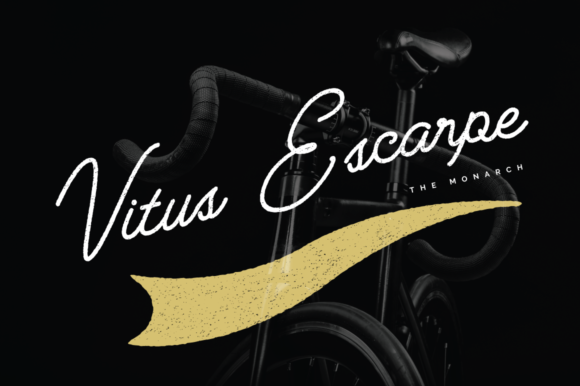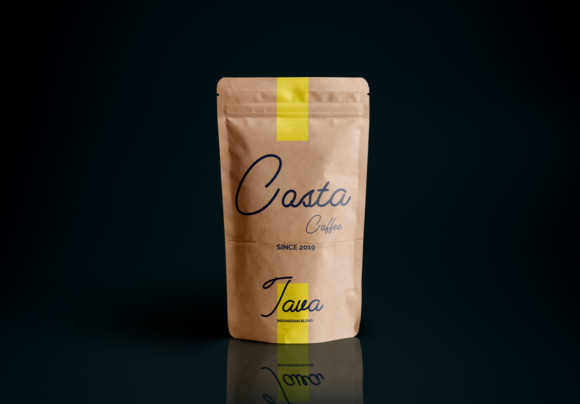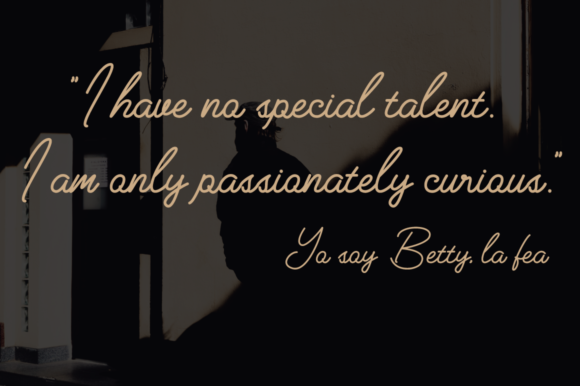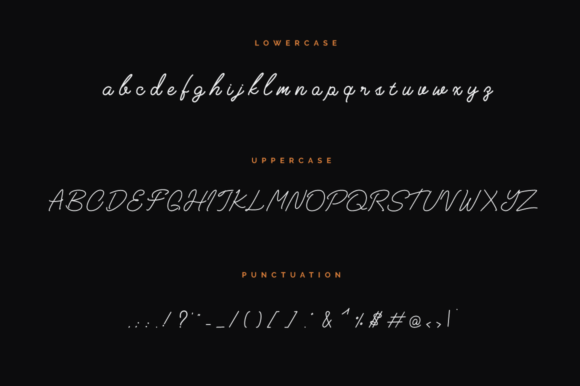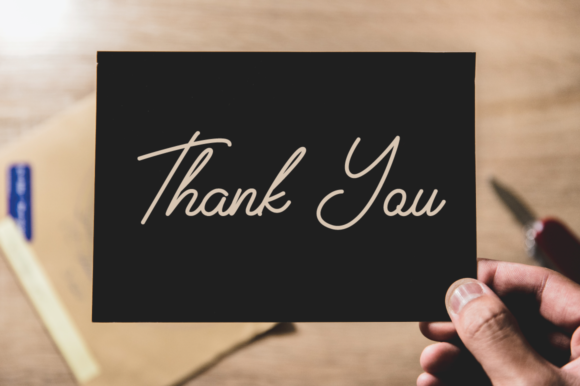
Discover the Charm of Heima Font: A Sweet and Simple Handwritten Delight
Are you a designer, crafter, or simply a font enthusiast looking for a unique and captivating typeface to elevate your creative projects? Look no further than Heima Font, a sweet and simple handwritten font that exudes a cool charm. In this article, we’ll dive into the world of Heima Font, exploring its distinctive features, uses, and the inspiration behind its creation.
The Story Behind Heima Font
Heima Font is a carefully crafted handwritten font that boasts a distinctive personality. Its creator aimed to design a typeface that would convey a sense of warmth, friendliness, and approachability. With Heima, you’ll discover a font that feels both personal and relatable, making it perfect for a wide range of creative applications.
What Makes Heima Font So Special?
So, what sets Heima Font apart from other typefaces? Here are a few key characteristics that make it so unique:
• Sweet and Simple: Heima Font features a clean and uncomplicated design, making it easy to read and understand. Its simplicity is part of its charm, allowing it to adapt seamlessly to various contexts.
• Handwritten Charm: Heima’s handwritten nature gives it a warm, organic feel that resonates with audiences. Its subtle imperfections and varying line widths create a sense of humanity and personality.
• Cool and Collected: Despite its sweet and simple nature, Heima Font possesses a certain coolness that sets it apart from more traditional typefaces. Its unique charm makes it perfect for designers and crafters looking to add a touch of personality to their work.
Using Heima Font in Your Creative Projects
Heima Font’s versatility makes it an excellent choice for a wide range of creative applications, including:
• Branding and Logo Design: Heima Font’s unique personality makes it an excellent choice for branding and logo design. Its simplicity and charm ensure that your logo will stand out and be memorable.
• Digital and Print Materials: Whether you’re designing a website, social media graphics, or print materials like brochures and flyers, Heima Font is an excellent choice. Its legibility and charm make it perfect for conveying your message.
• Crafting and DIY Projects: Heima Font is also perfect for crafters and DIY enthusiasts. Use it to add a personal touch to your handmade cards, gift tags, and other creative projects.
Tips for Getting the Most Out of Heima Font
To truly get the most out of Heima Font, consider the following tips:
• Experiment with Font Sizes: Heima Font’s simplicity and charm make it adaptable to various font sizes. Experiment with different sizes to find the perfect fit for your project.
• Pair it with Other Fonts: Heima Font pairs well with other fonts, especially those with a bold or serif design. Experiment with different font combinations to create a unique look.
• Use it in Color: Heima Font’s charm is amplified when used in color. Consider using a bold, bright color to make your text stand out.
In conclusion, Heima Font is a sweet and simple handwritten font that offers a unique charm and versatility. Its cool and collected nature makes it perfect for designers, crafters, and anyone looking to add a touch of personality to their creative projects. With its wide range of applications and adaptability, Heima Font is sure to inspire and elevate your work. So why not give it a try and discover the charm of Heima Font for yourself?